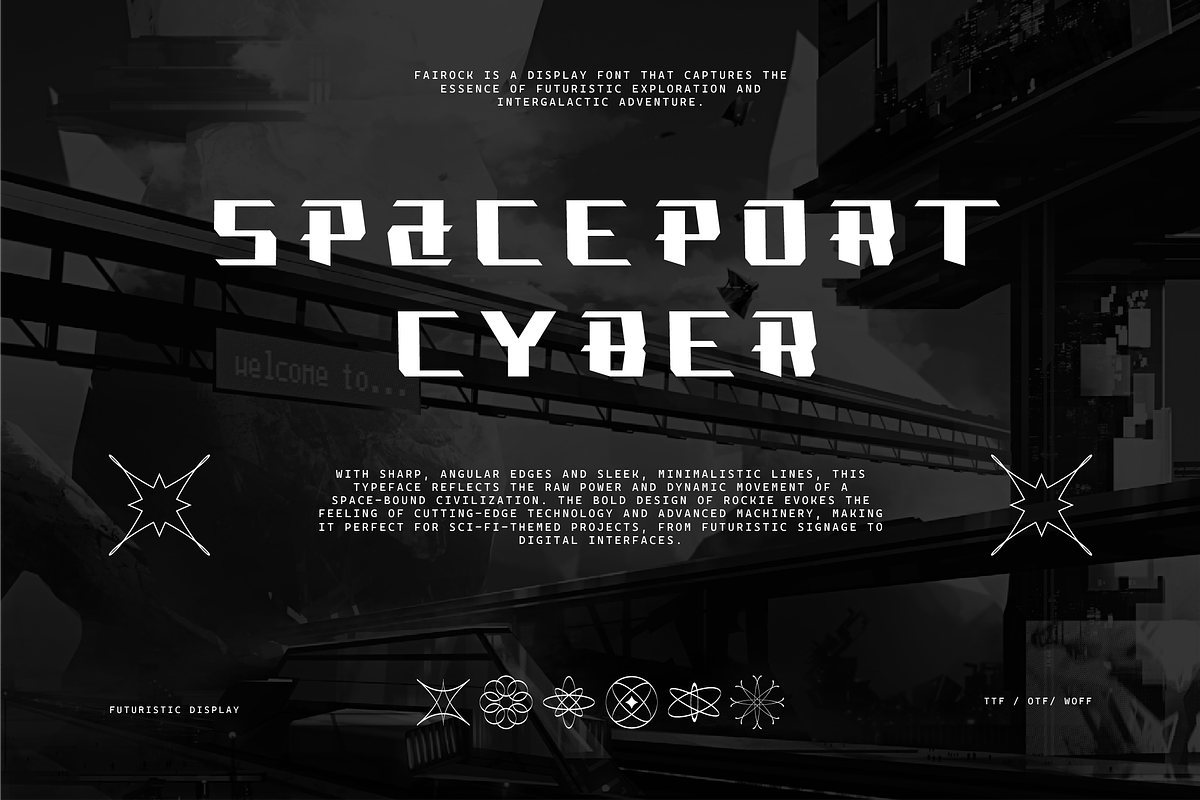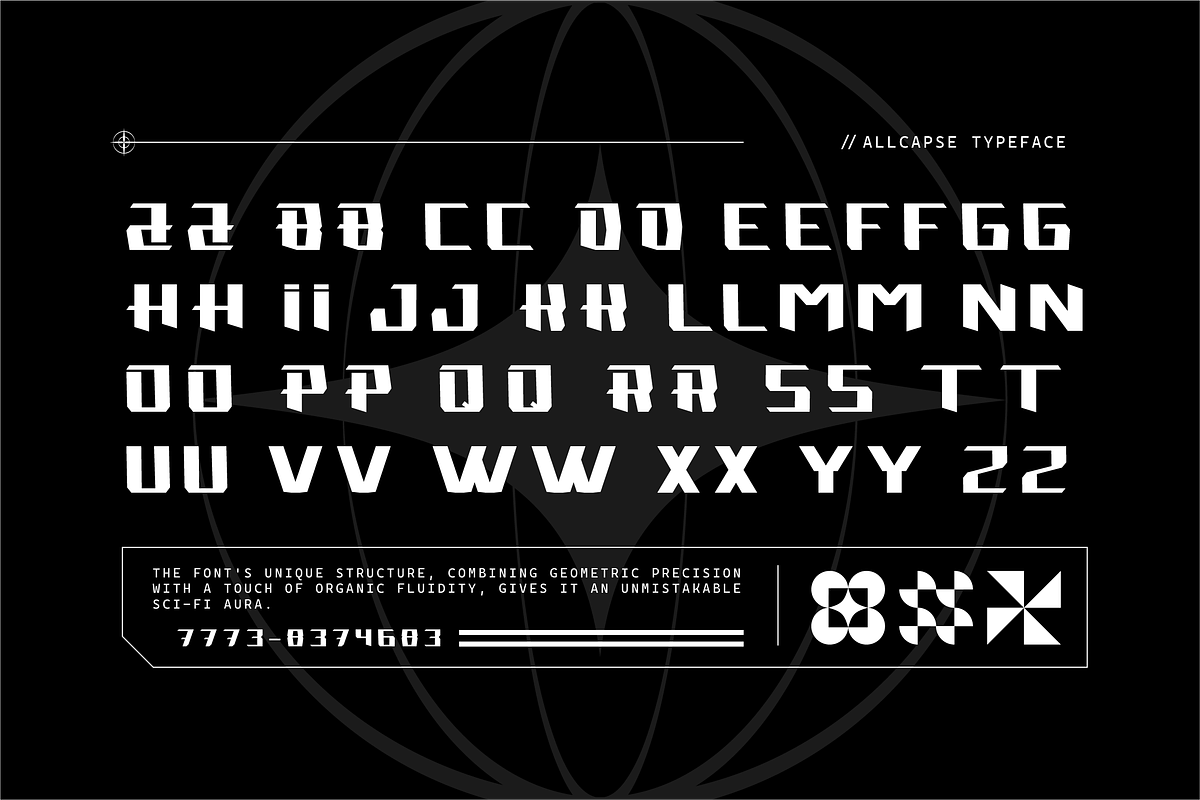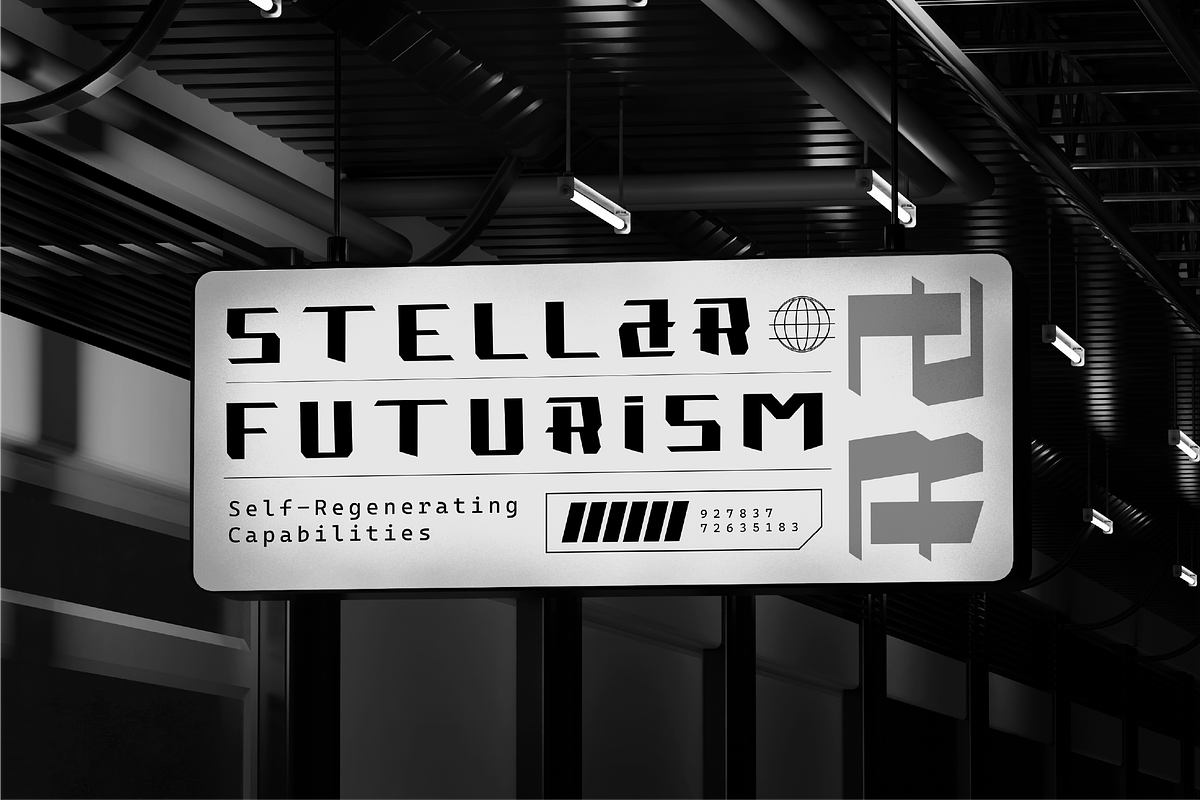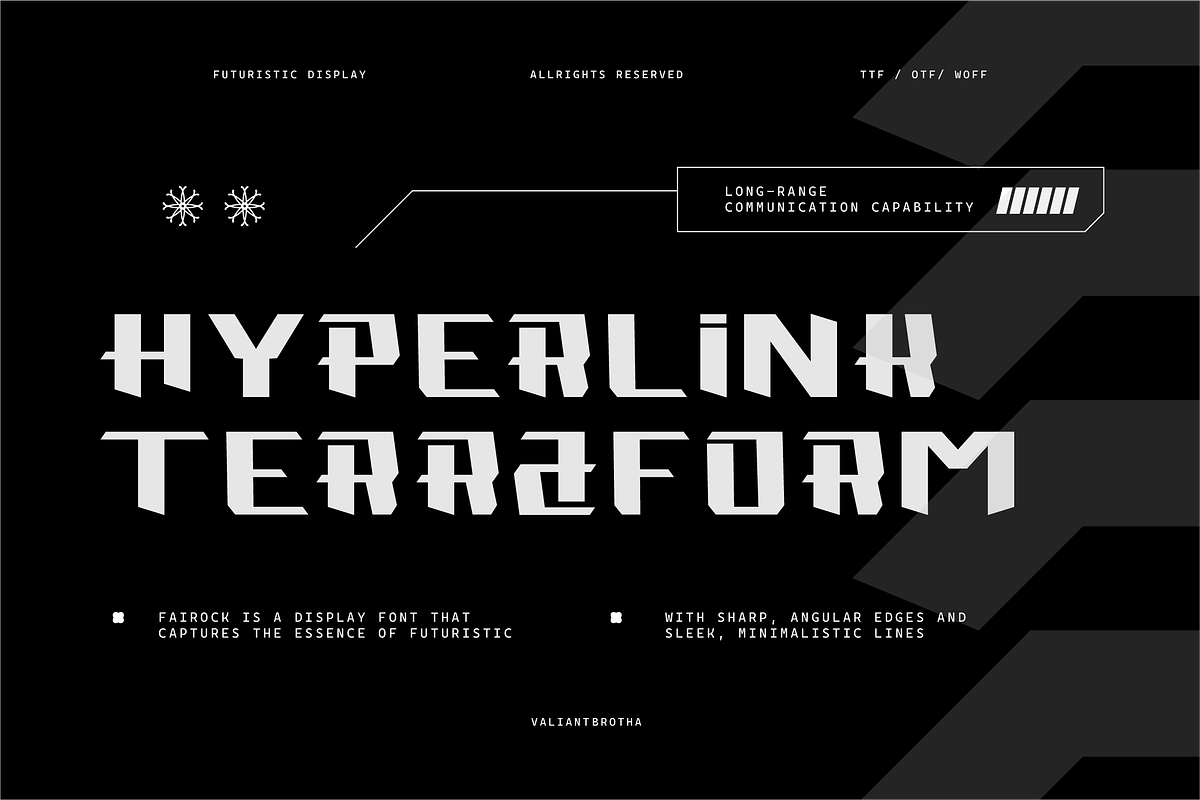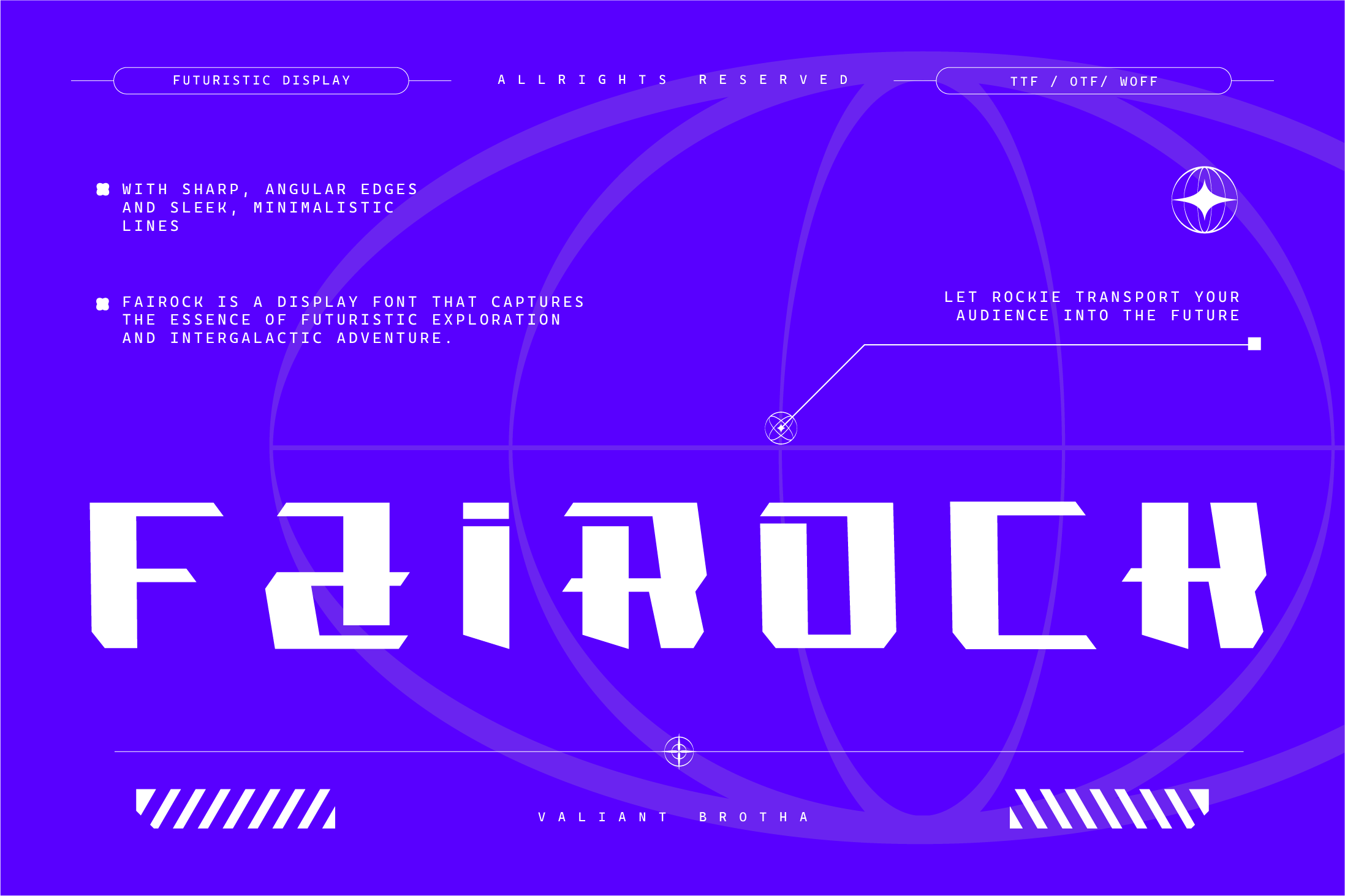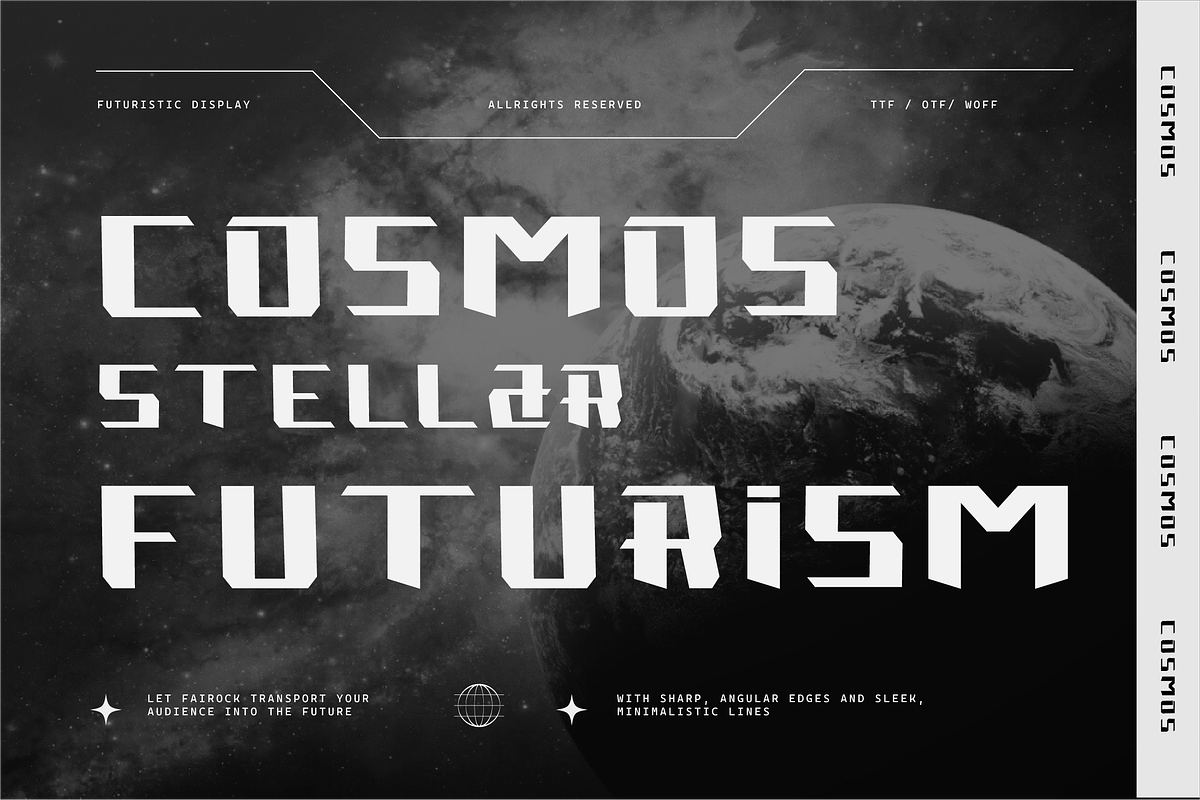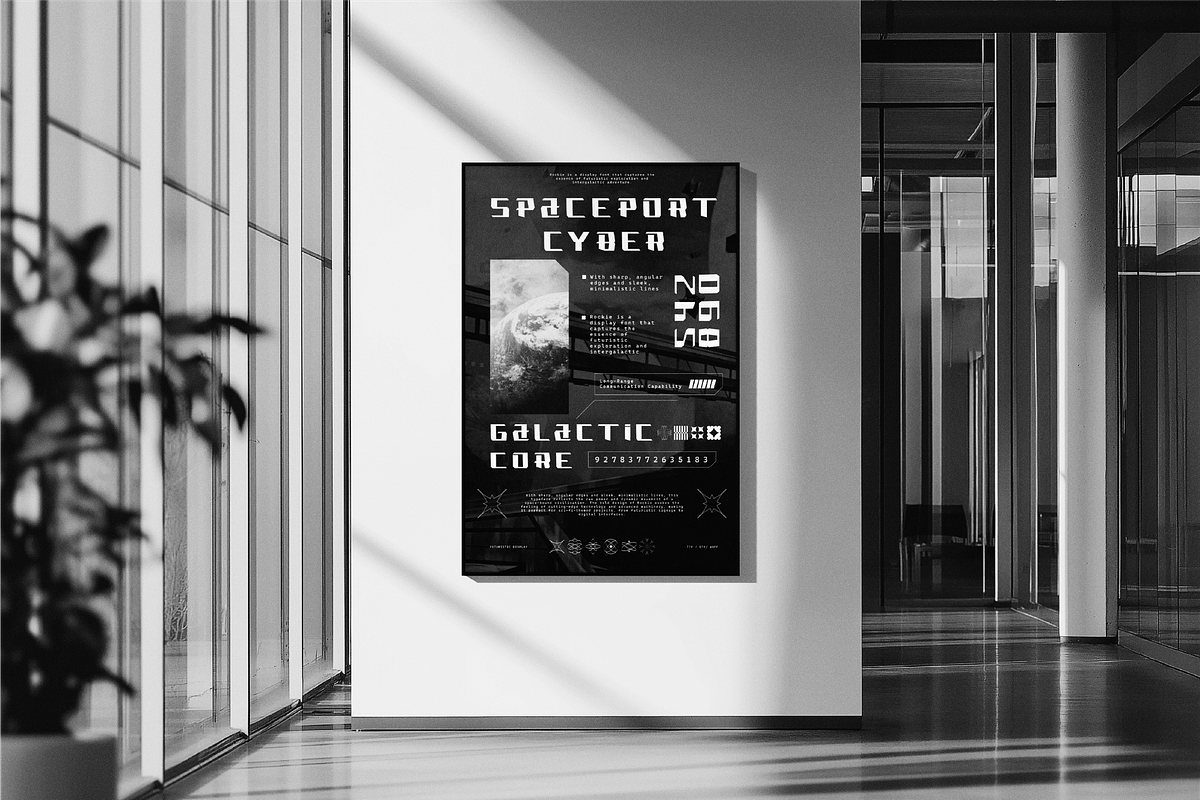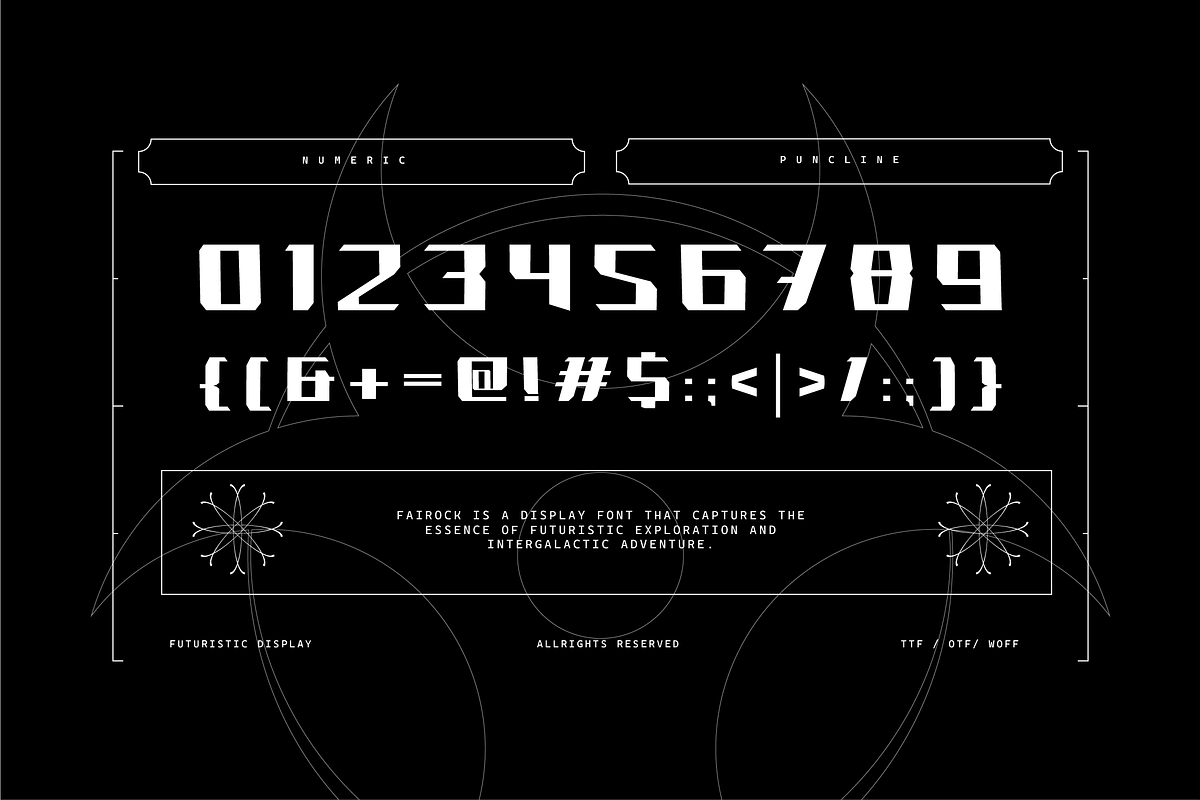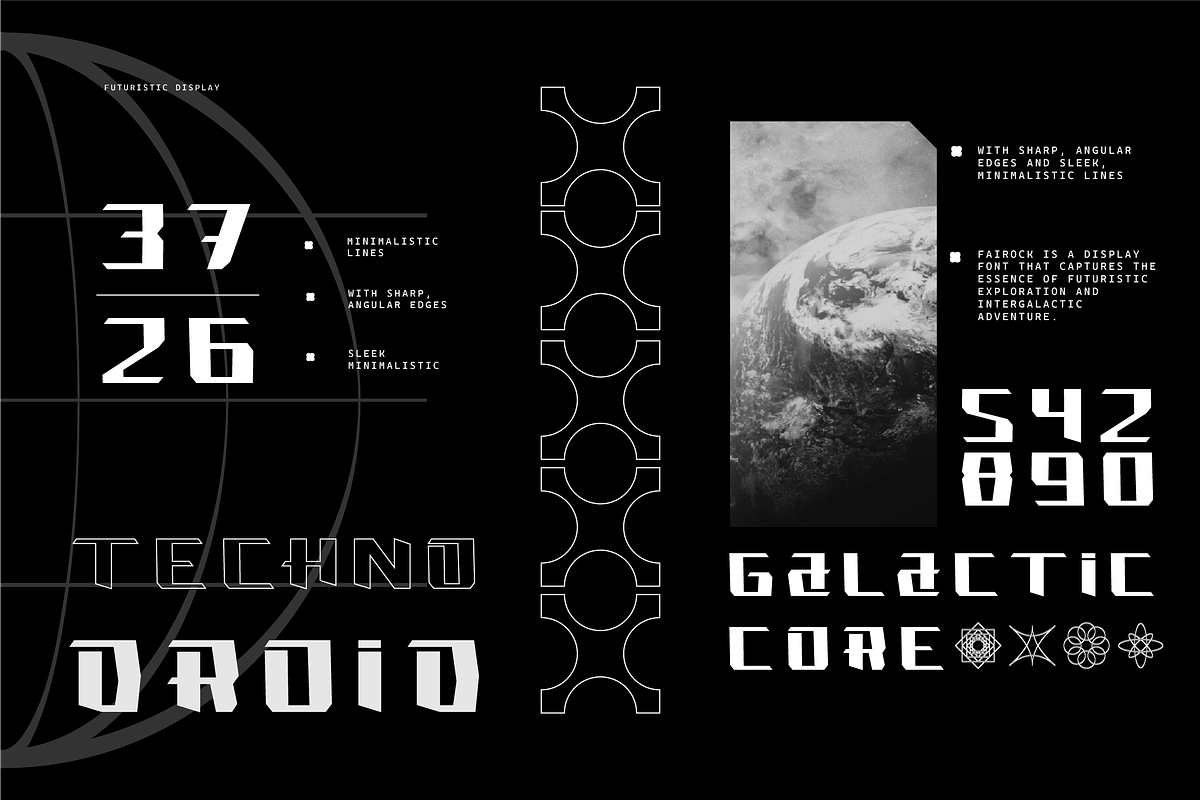
VB Fairock - Futuristic Display Font
Fairock Font exudes a futuristic, cutting-edge aesthetic that perfectly aligns with the tech-driven world of tomorrow. Its sleek, angular lines and modern geometric structure evoke a sense of advanced innovation and digital sophistication.